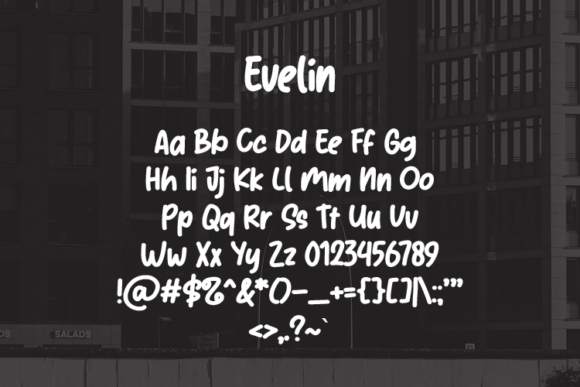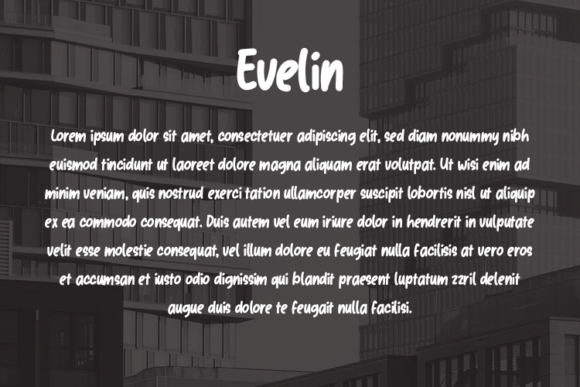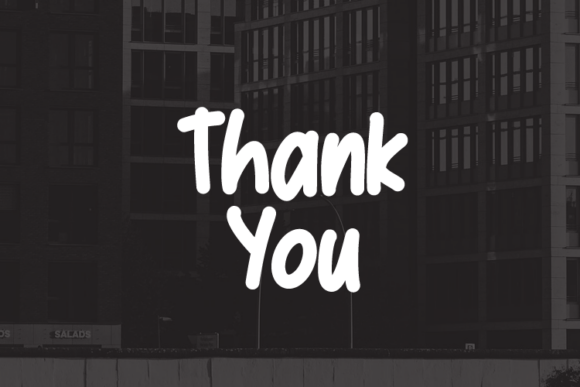
Introducing Evelin Font: The Epitome of Modern Elegance and Readability
In the realm of typography, few fonts manage to strike a balance between modernity, elegance, and readability. Evelin Font, however, stands out as a beacon of excellence, offering a sophisticated and versatile typeface suitable for a wide array of applications. Designed with the contemporary designer and crafter in mind, Evelin is not just a font; it’s a tool that elevates your creative projects to new heights of aesthetic appeal and legibility.
The Design Philosophy Behind Evelin
Evelin is crafted with a keen eye for detail and a deep understanding of the needs of modern designers. Its design philosophy revolves around flexibility and readability. Whether you’re working on a digital project, a print publication, or a craft, Evelin ensures that your text is not only beautiful but also effortlessly readable. This balance is crucial in today’s fast-paced digital age, where capturing and retaining the reader’s attention is more challenging than ever.
Evelin’s versatility extends far beyond its use in professional design software. It’s also an excellent choice for crafters who create handmade cards, scrapbooking, and other paper crafts. The font’s clarity and elegance make it perfect for both digital and print projects, from blog posts and social media graphics to posters, flyers, and invitations.
- Modern and Elegant Design: Evelin brings a contemporary touch to any project, making it stand out with its sophisticated aesthetic.
- Excellent Readability: Designed with readability in mind, Evelin ensures that your text is clear and easy to read across various media.
- Flexible Use: From professional design projects to personal crafting, Evelin adapts to your needs, offering a wide range of applications.
Evelin Font represents a significant advancement in typography, offering a perfect blend of modern elegance, flexibility, and readability. Whether you’re a professional designer working with the latest software or a crafter creating handmade projects, Evelin provides the tools you need to elevate your work. With its superior technical features and versatile design, Evelin Font is poised to become an indispensable part of your creative toolkit.